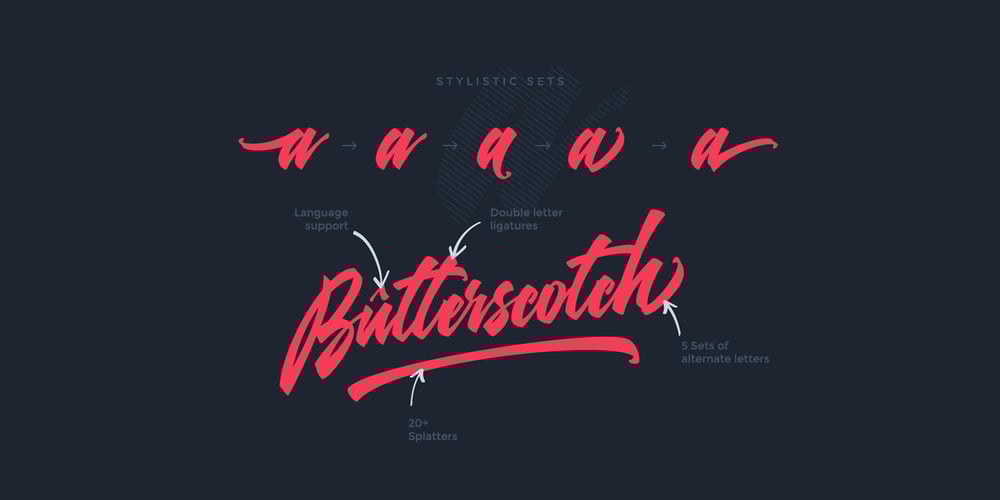
Airborne Font Family was designed by Anton Didenko and published by Kavoon. Airborne contains 2 styles and family package options. Airborne is the font pack. The Normal font combines with the alternate character font to make each word unique. Then add the Splatters font as your tagline and — the ideal logo!